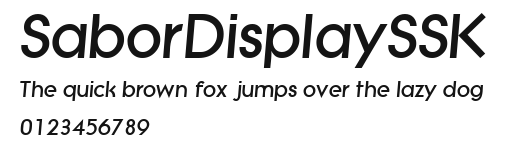
About SaborDisplaySSK.ttf
SaborDisplaySSK.ttf is a modern, elegant sans-serif font designed for ultimate readability and visual harmony. Perfect for branding, headlines, web design, and print materials.